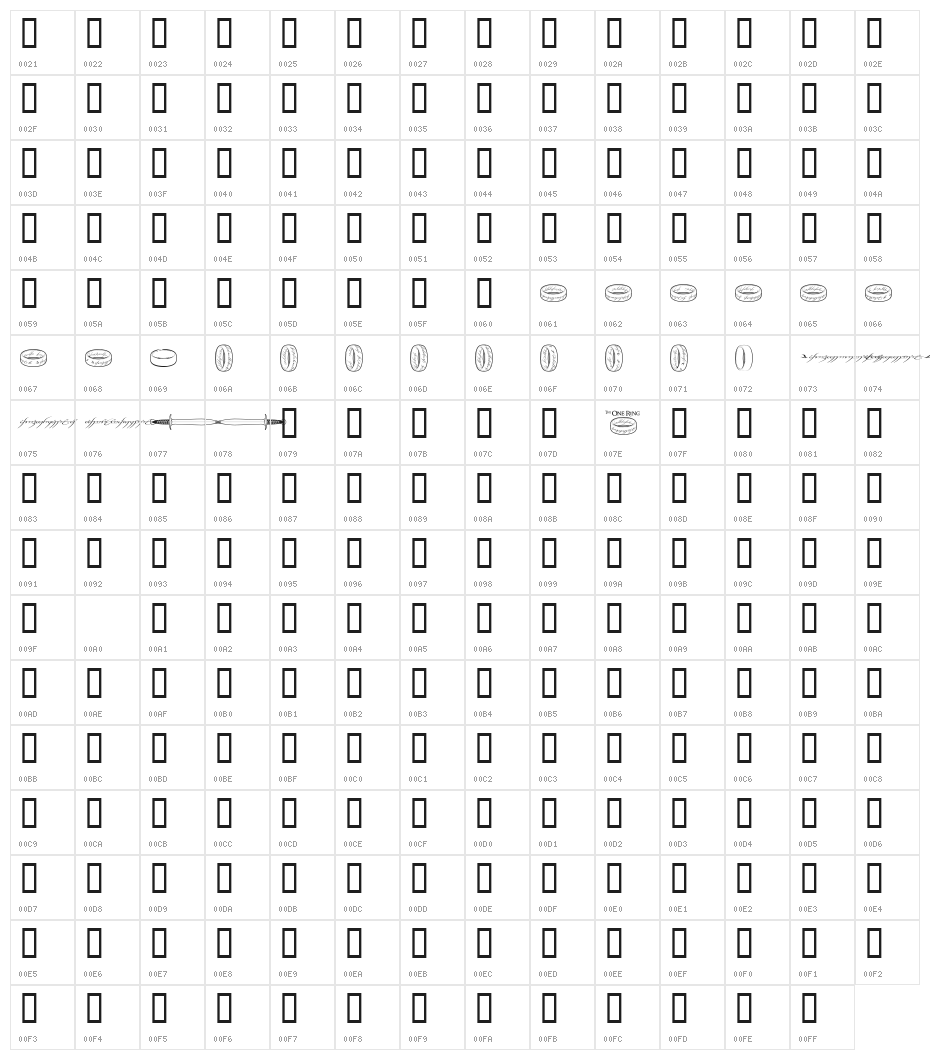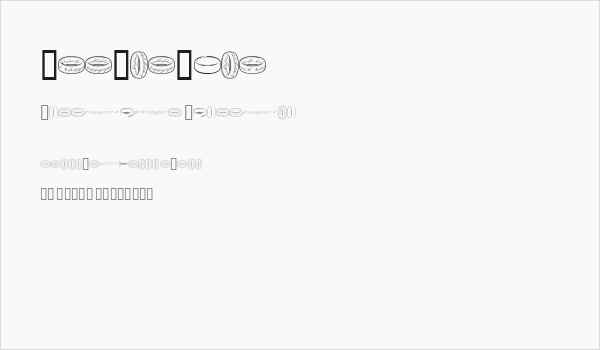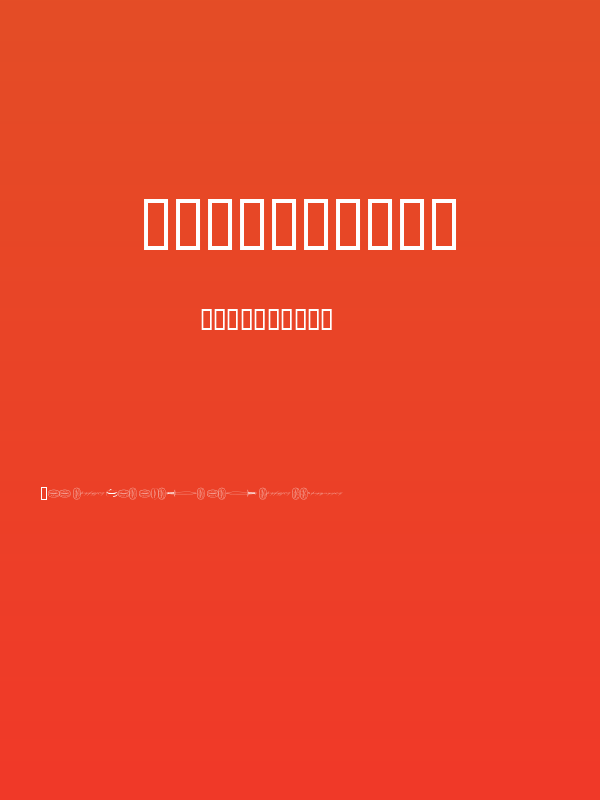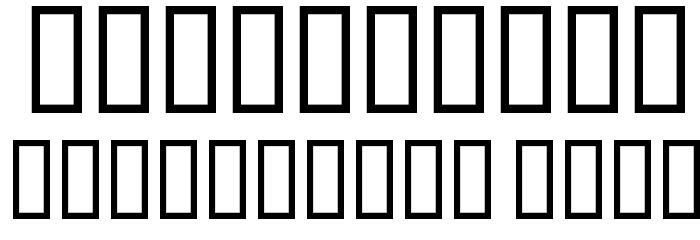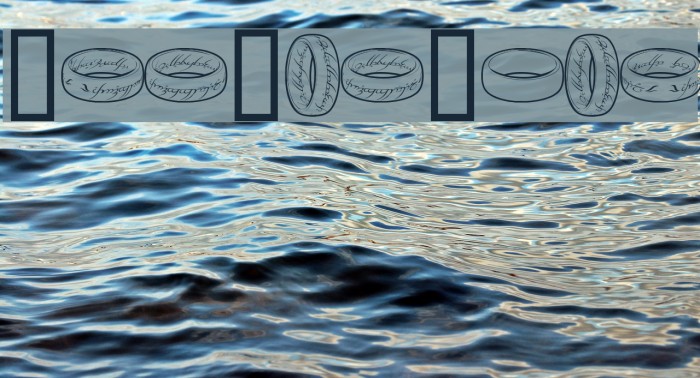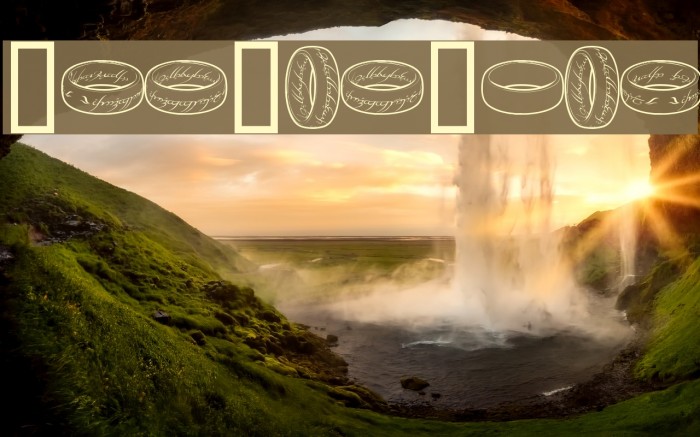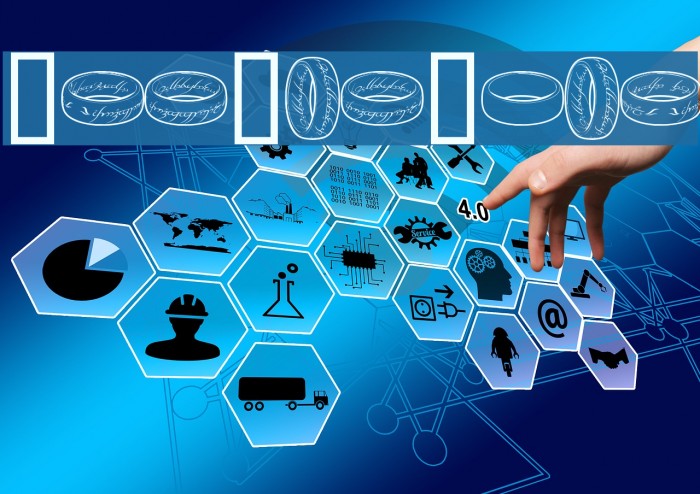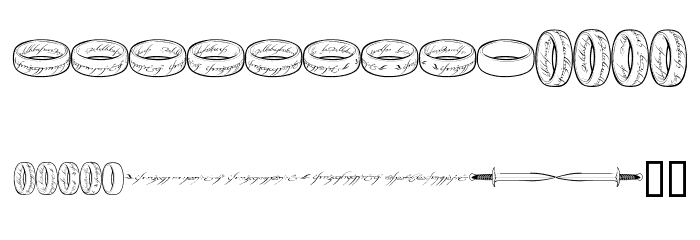
TheOneRing Font
TheOneRing Description
This is not a valid font. The image appears to contain graphical elements or symbols rather than a complete and usable typeface. The design includes decorative elements that resemble inscriptions or engravings, possibly inspired by fantasy themes. These elements are not suitable for standard text representation.
| Use Case | Decorative artwork, Themed graphics |
| Proposed Projects | This design could be used for decorative purposes, such as themed artwork or fantasy-inspired graphics. |